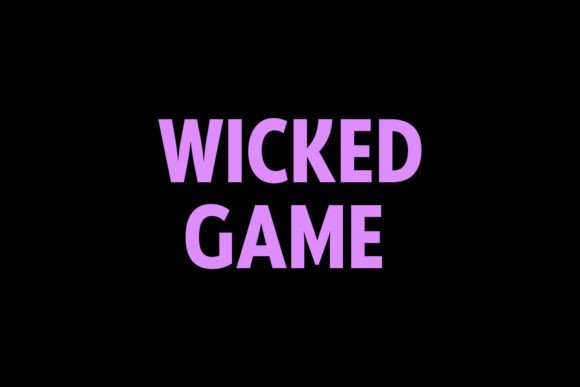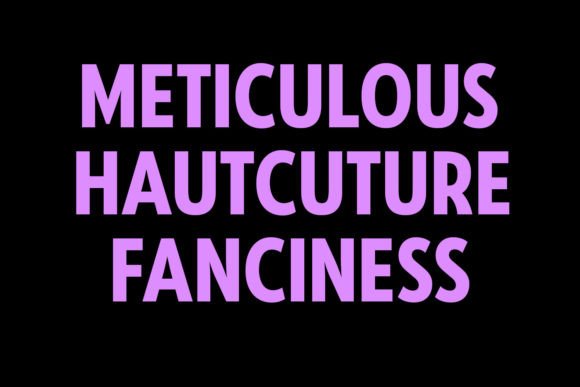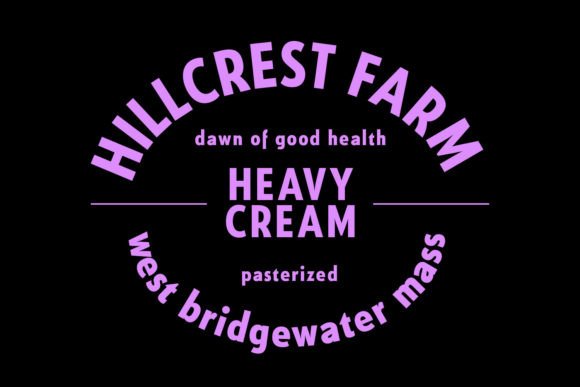
Introduction to Großen Font
Introducing our latest contemporary sans-serif font, “Großen “.
With its sleek lines and timeless appeal, Modernista is the perfect choice for trendy designs that demand a touch of sophistication Each letter is crafted with precision, giving it a polished and professional look.
Key Features of Großen Font
Why Choose Großen Font?
Großen Font offers exceptional quality and versatility, making it a valuable addition to your design toolkit. Whether you’re creating for personal projects or commercial use, Großen Font delivers professional results.